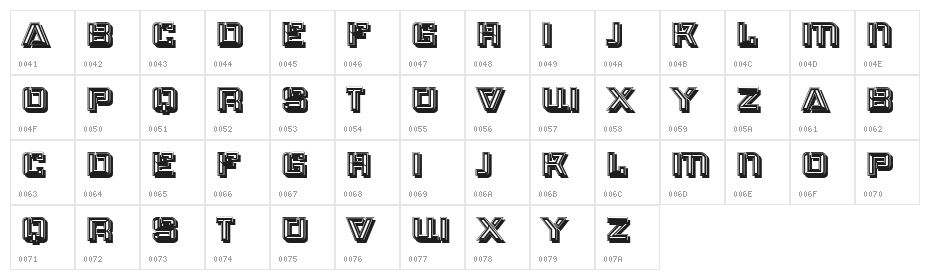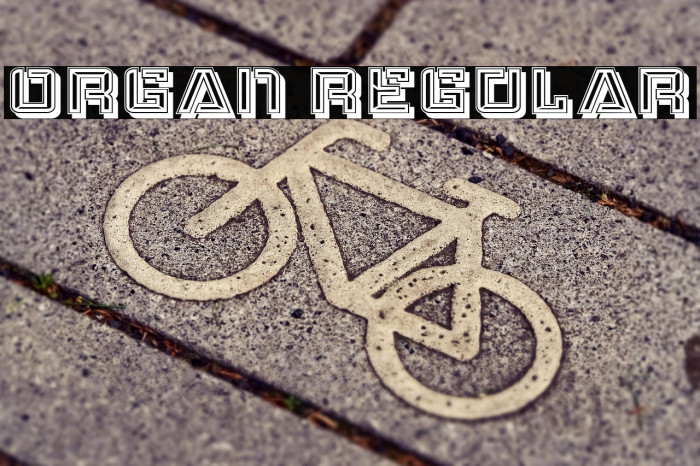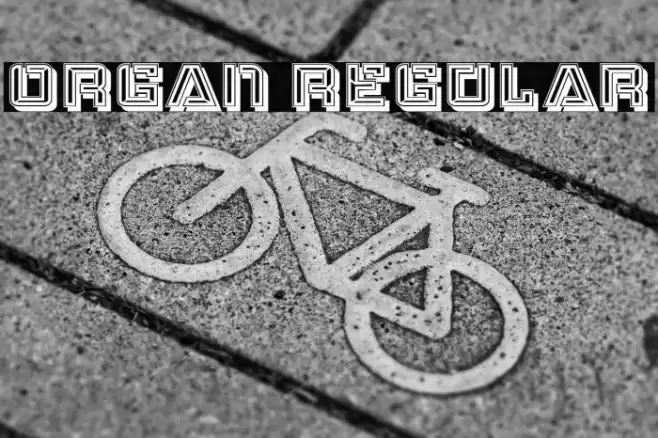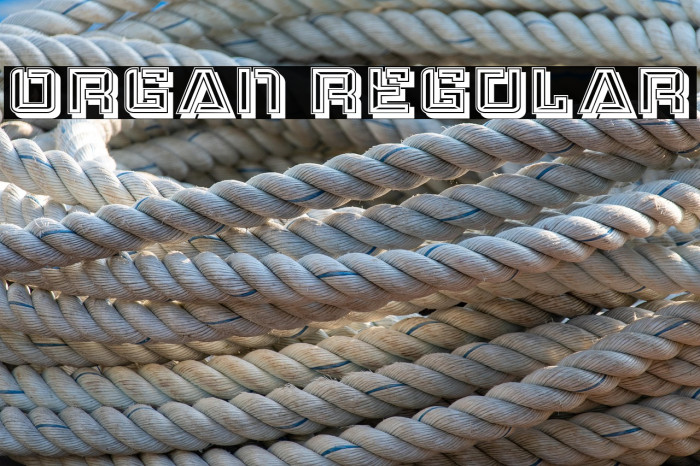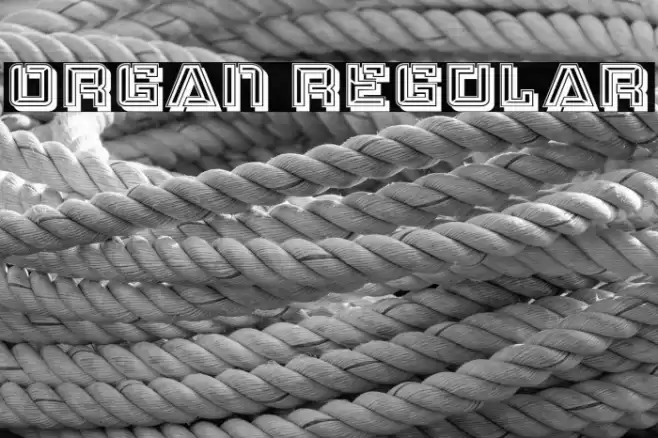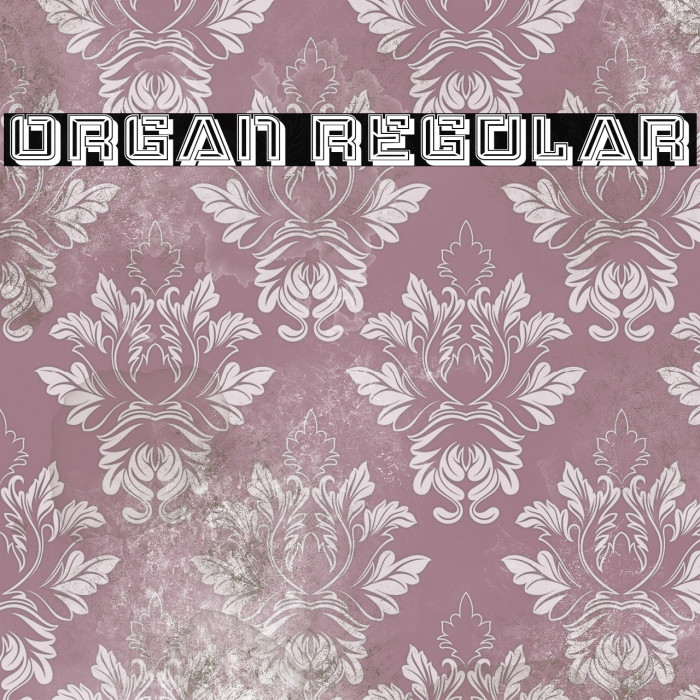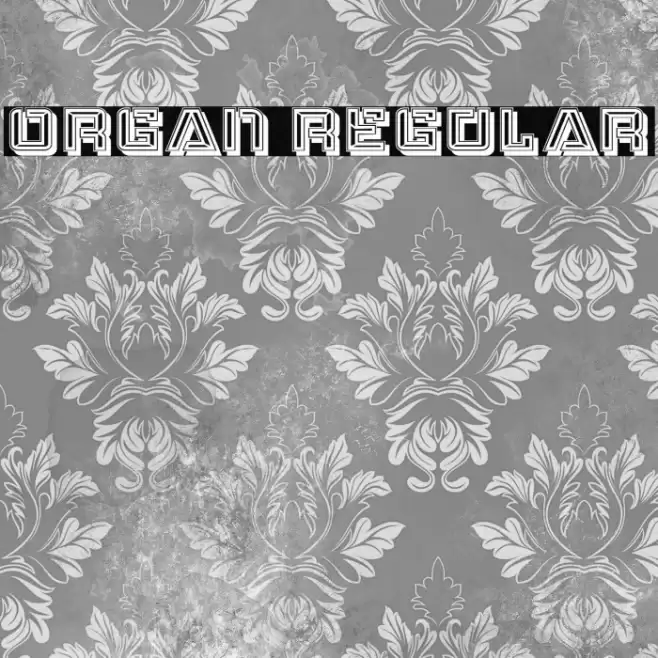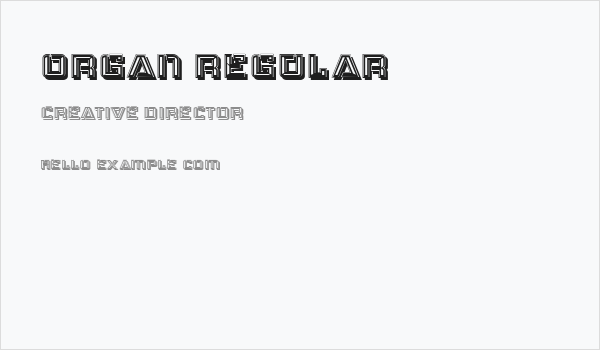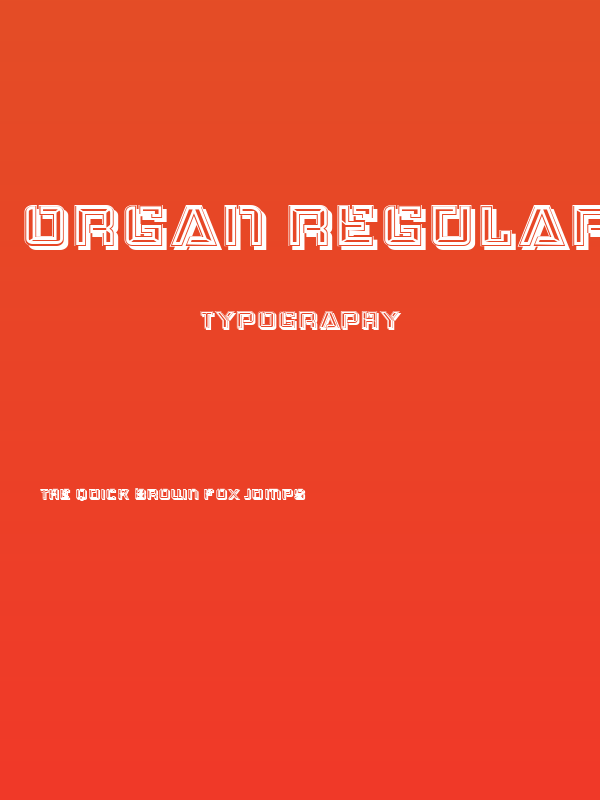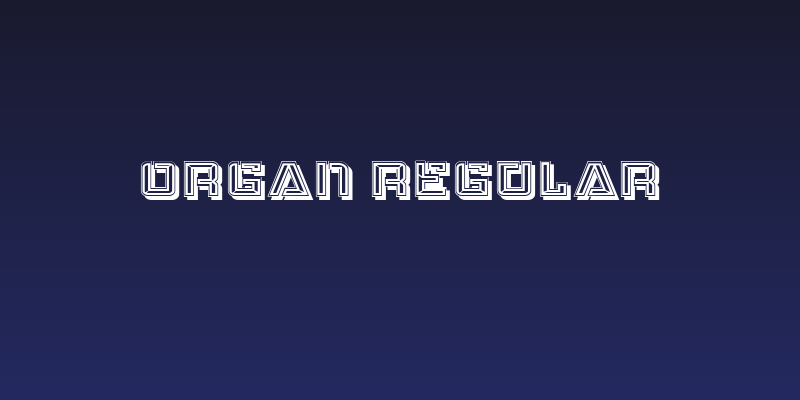
Organ Regular Font
Organ Regular Description
This font features a bold, geometric design with a three-dimensional effect created by layered outlines. The characters are uppercase only, with a futuristic and industrial aesthetic. Each letter is constructed with sharp angles and straight lines, giving it a mechanical feel. The font's unique style is emphasized by the use of multiple layers that create a shadow effect, adding depth and visual interest. The spacing between characters is consistent, allowing for clear readability despite the complex design. This font is ideal for projects that require a modern and edgy look, such as technology branding, video game titles, or sci-fi themed designs.
| Overall Style | Futuristic, Industrial |
| Proposed Projects | Ideal for technology branding, video game titles, sci-fi themed designs, and industrial-themed posters. |